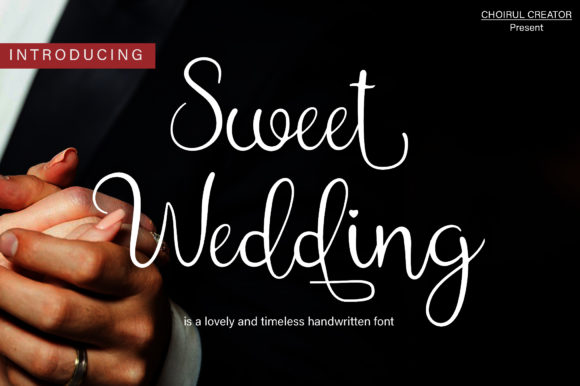
Welcome to the captivating world of Sweet Wedding Font, a charming and elegant handwritten font that adds a touch of warmth and sophistication to your creative projects. Immerse yourself in the beauty of this script font, meticulously crafted to evoke a sense of romance, love, and timeless elegance.
Unleash your creativity with Sweet Wedding Font, the perfect choice for creating eye-catching logos, branding, and quotes that leave a lasting impression. Each letter, lovingly crafted with a unique and beautiful touch, dances across the screen, bringing your designs to life.
With Sweet Wedding Font, you'll have the power to transform your ideas into stunning visual masterpieces. Its timeless charm lends itself effortlessly to a wide range of projects, from heartfelt wedding invitations to enchanting social media posts. Create logos that exude professionalism and sophistication, branding that tells a story, and quotes that inspire and uplift.
Indulge in the versatility of Sweet Wedding Font, a font that gracefully adapts to any project, any style, any vision. Its delicate strokes and flowing curves add a touch of grace to logos and branding, while its charming personality shines through in quotes and social media posts.
Experience the magic of Sweet Wedding Font today and embark on a creative journey that will leave you spellbound. From dreamy wedding invitations to captivating social media posts, let your imagination soar as you create designs that capture hearts and minds.